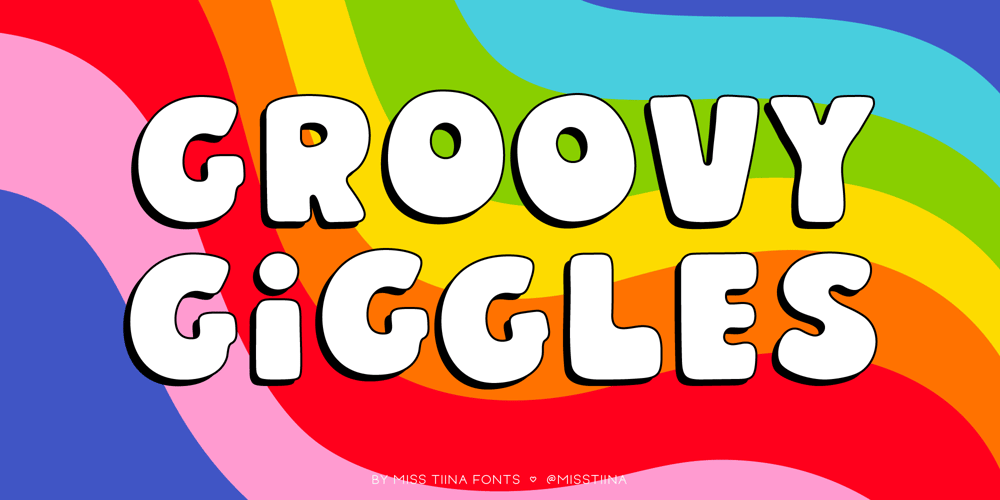
MTF Groovy Giggles
MTF Groovy Giggles font
MTF Groovy Giggles Font Family was designed by Tina Raparanta and published by Miss Tiina Fonts. MTF Groovy Giggles contains 1 styles and family package options. Groovy Giggles is a playful and fun display font that adds a touch of whimsy to any design. With its lively shapes and quirky details, this typeface is perfect for creating a lighthearted feel in your designs. Use it for children’s books, invitations, and other applications that call for a touch of playfulness and creativity.